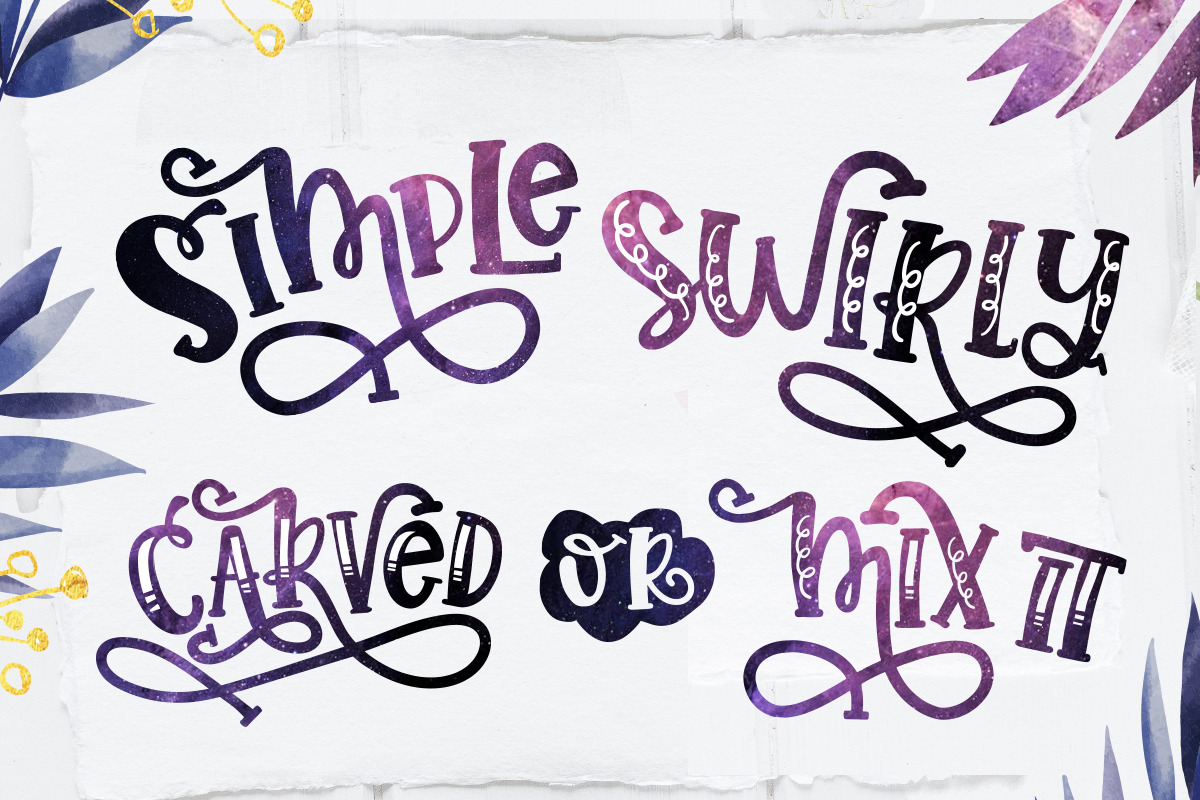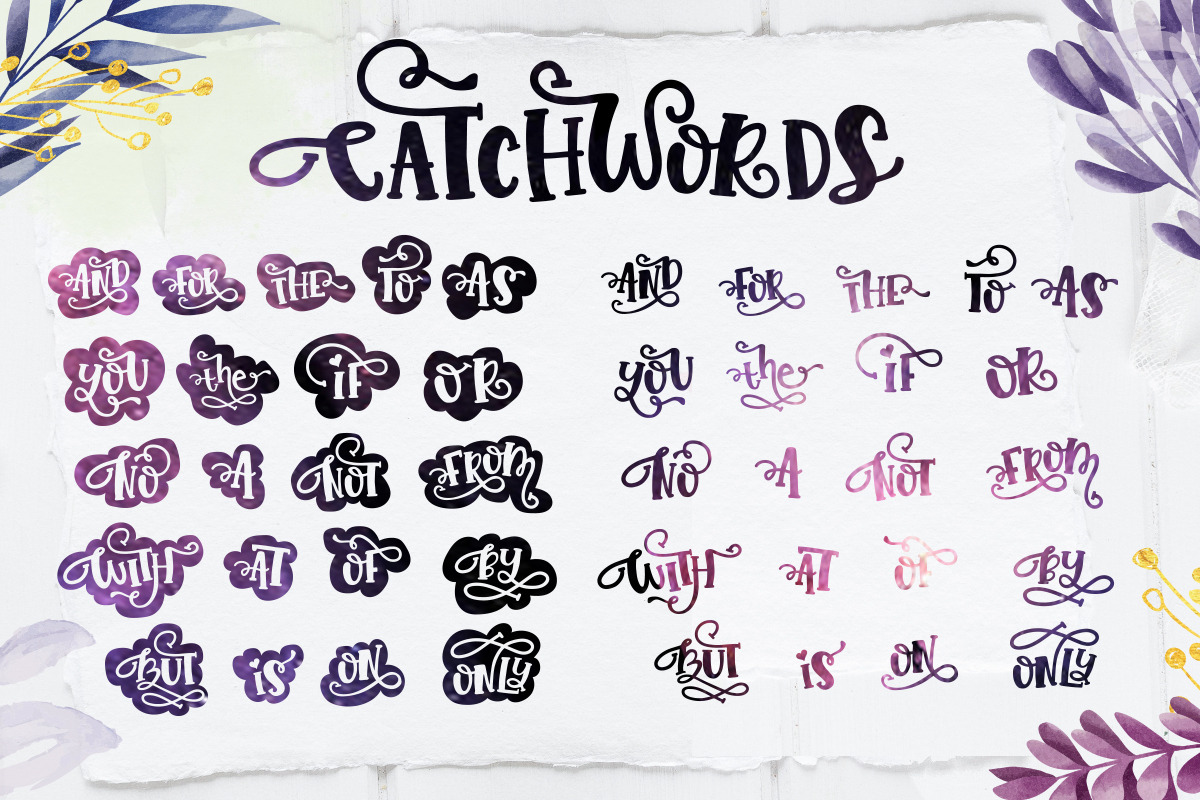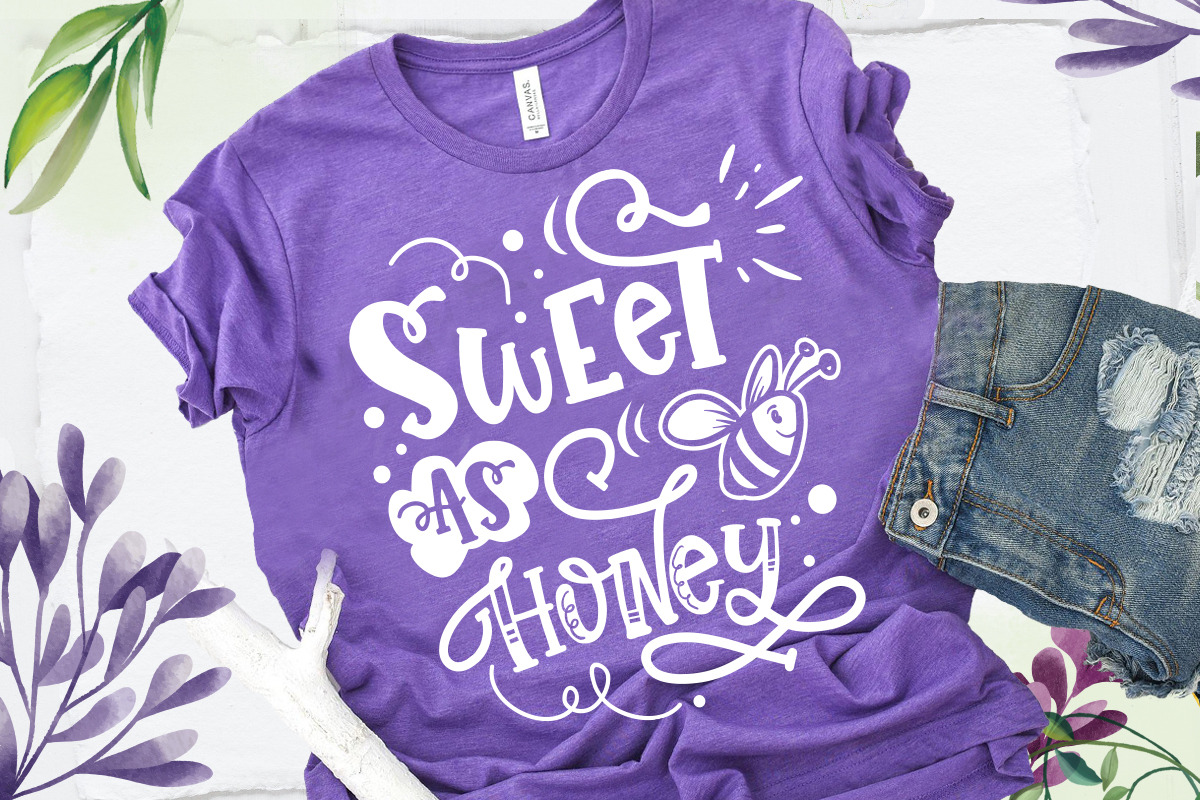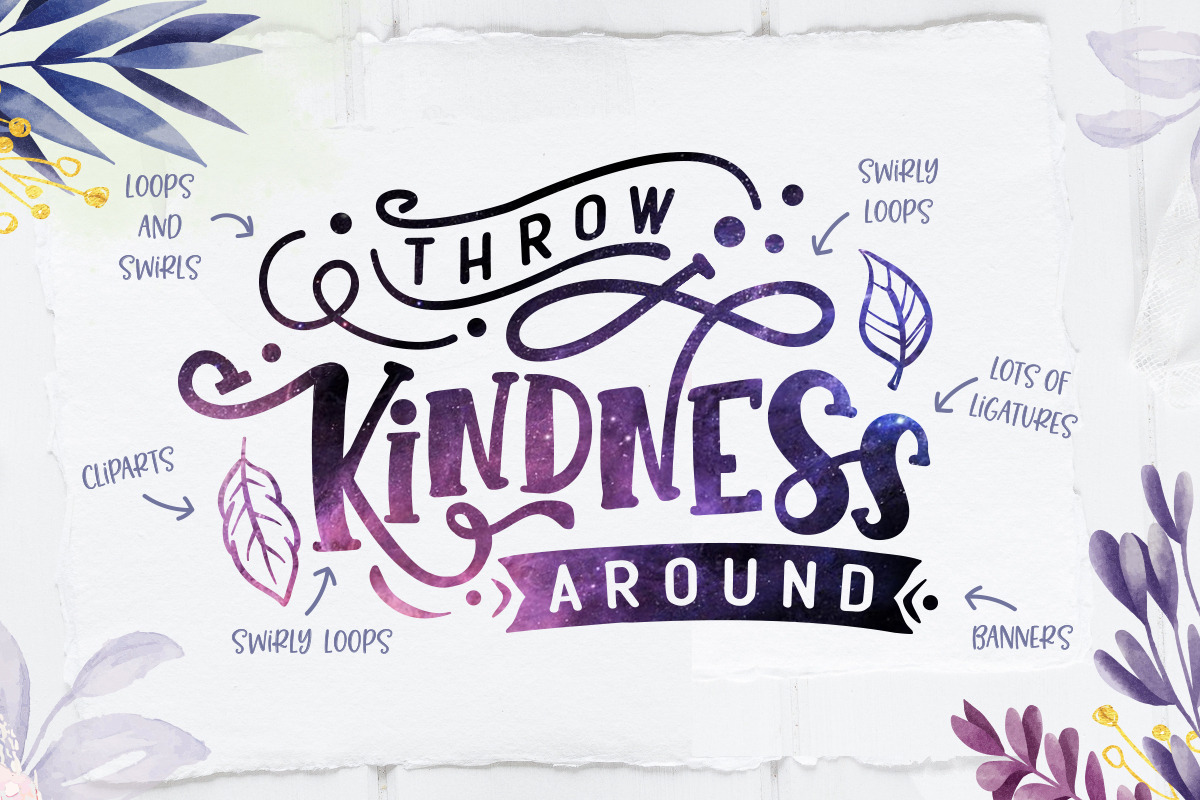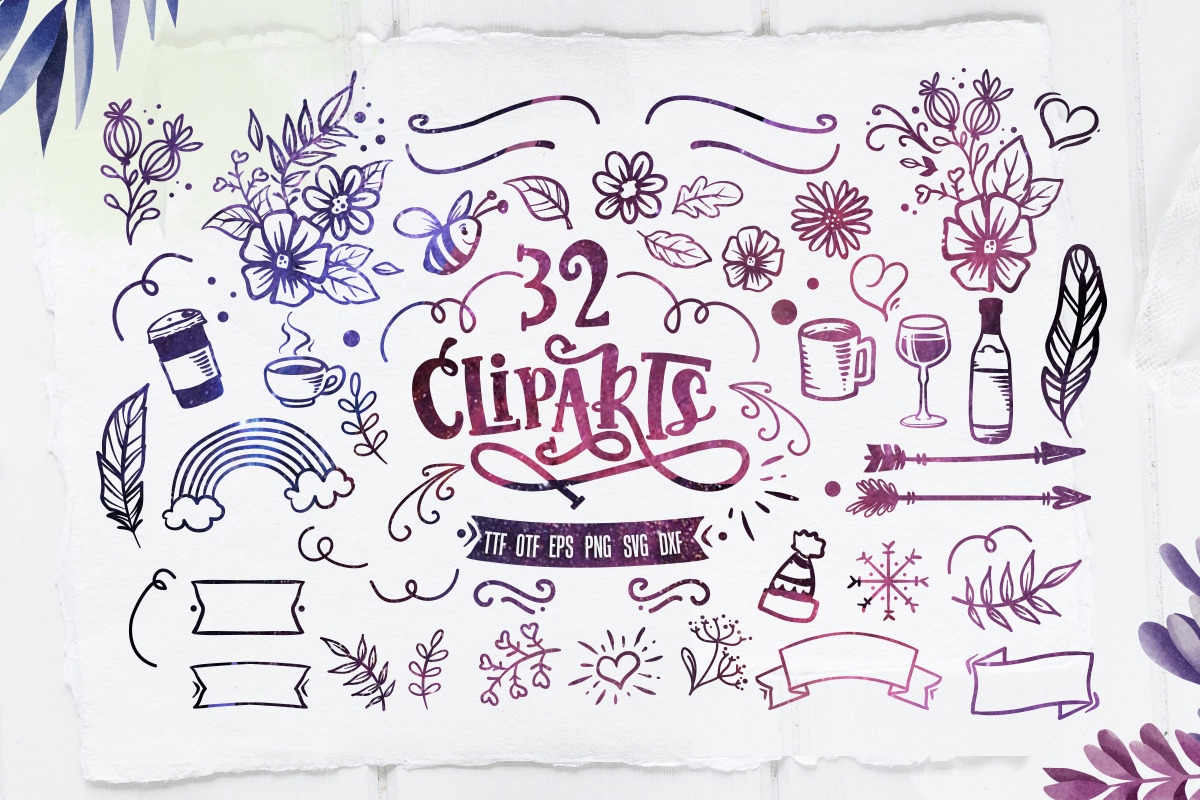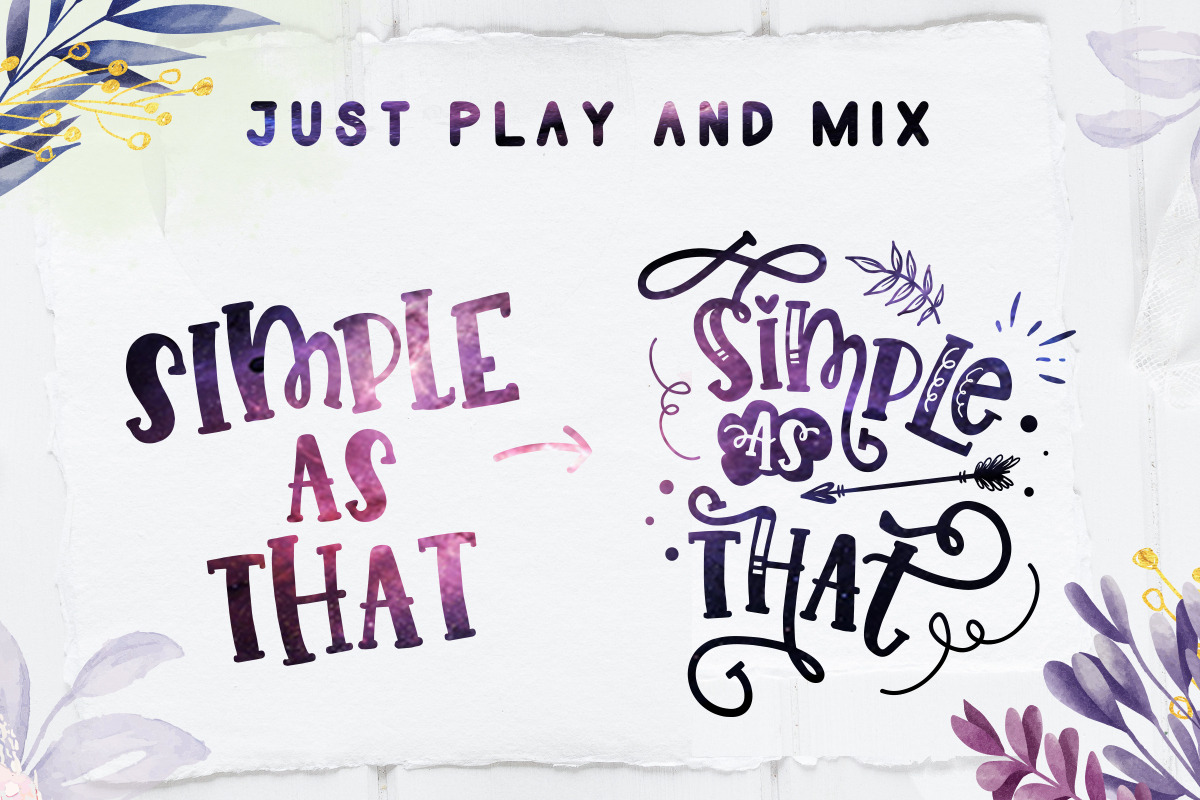
Sorinka Fun Font and extras
Sorinka is a fun font with lots of alternative glyphs plus two additional fonts (swirly and carved), catchwords and lots of cliparts in font format as well as EPS, PNG, SVG and DXF. Each glyph (caps and lowercase) has between 8 and 13 alternates!
The best tool if you want to create t-shirt designs, mug designs, or just play around.
- Each glyph (caps and lowercase) has between 8 and 13 alternates!